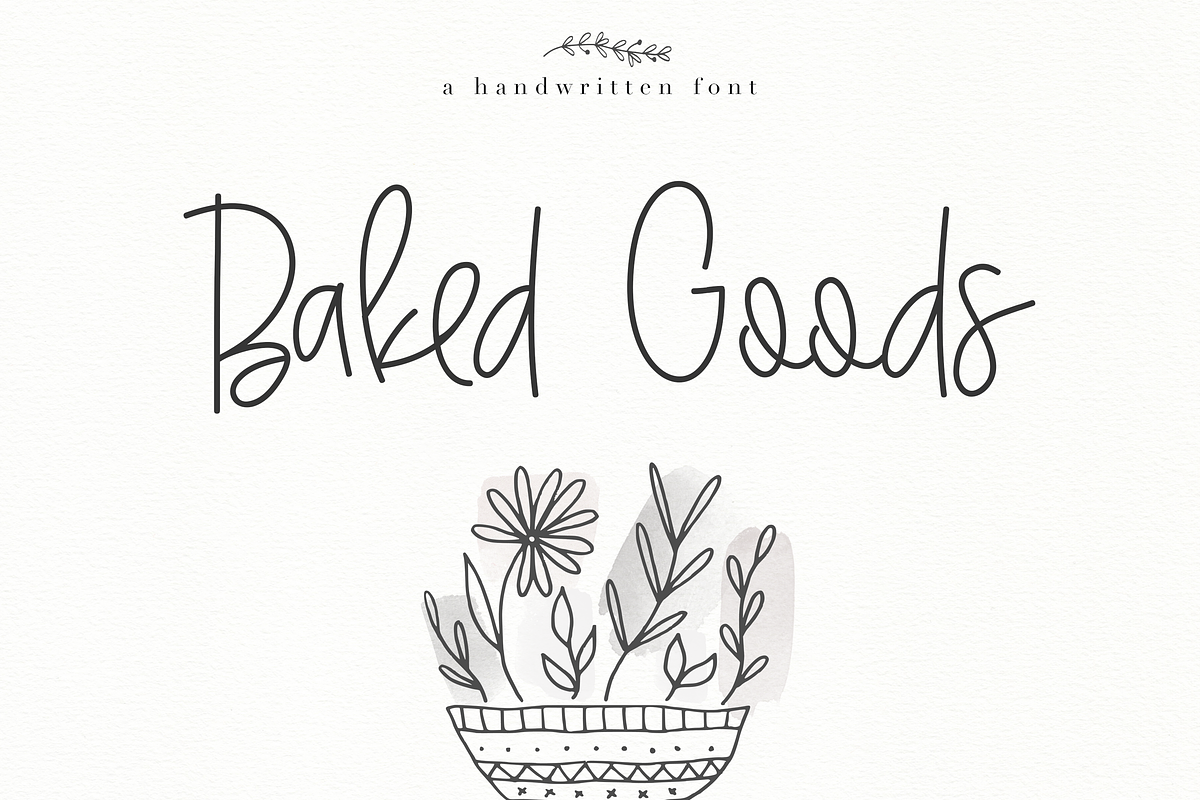
Baked Goods – Handwritten Font Free Download is a warm and whimsical typeface that captures the cozy charm of handwritten notes on bakery packaging or café menus. With its rounded strokes, playful curves, and inviting style, this font is perfect for food branding, product labels, recipe cards, greeting cards, and lifestyle blogs.
Its homemade feel brings comfort and personality to any design—just like your favorite fresh-baked treat. Whether you're designing for a local bakery, a sweet-themed Instagram post, or artisanal packaging, Baked Goods adds just the right amount of friendliness.
Designers love Baked Goods for its casual authenticity and versatility across both print and digital platforms. Want to add a homemade touch to your next project? Download Baked Goods – Handwritten Font Free Download and serve up delightful typography with every bite.